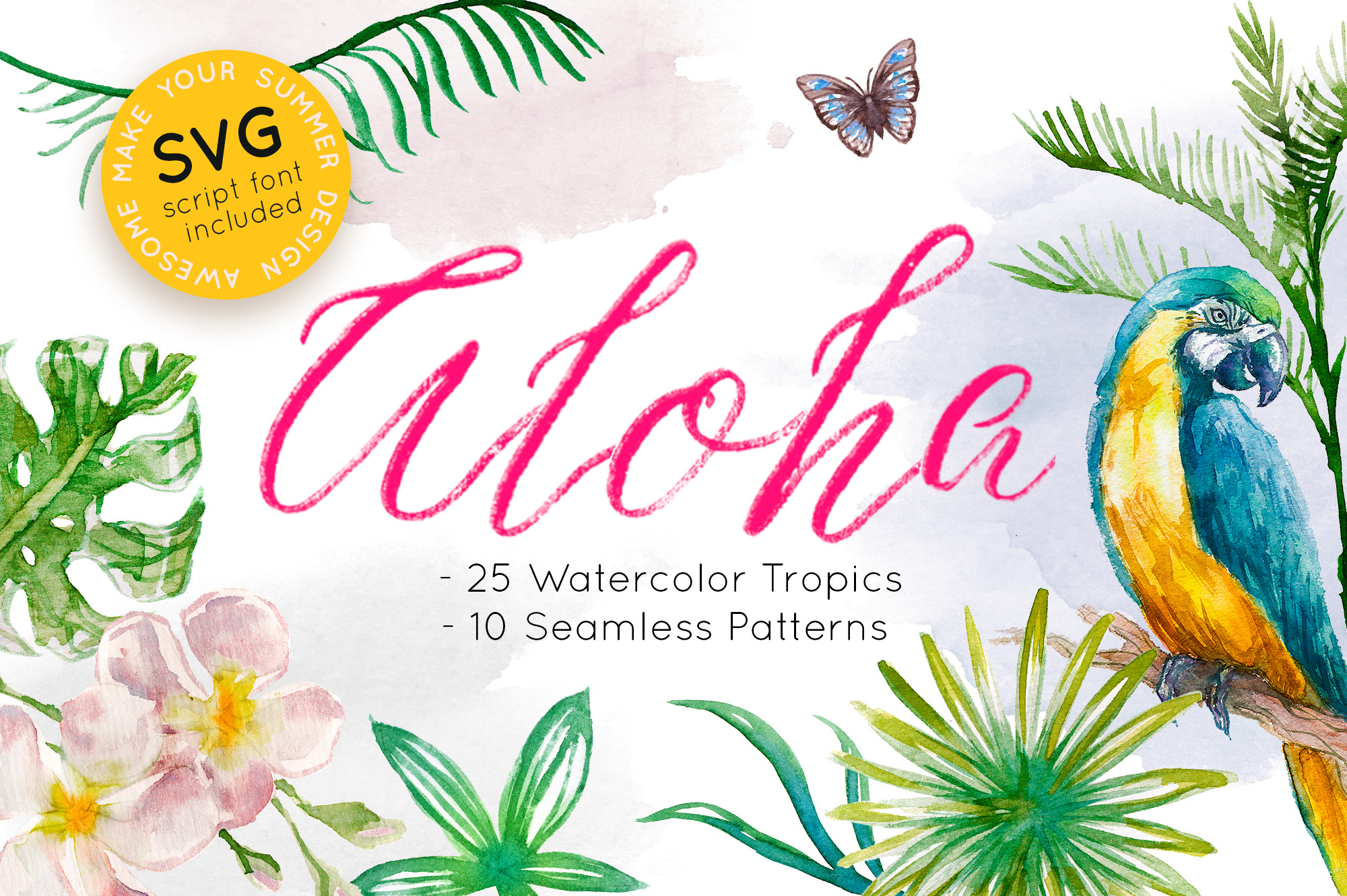
Watercolor Tropics | Script Font
Welcome to my new hand painted WATERCOLOR TROPICAL PARADISE! This fresh and warm summer bundle includes 25 watercolor tropics, 10 seamless patterns and SVG script font paired with solid vector version.
Aloha watercolor collection is really new and trendy, universal and modern! The owner of endless possibilities thanks to SVG script font addition! What you get, darling:
Aloha SVG font has a real hand-painted wet brush look, ultra-textured and transparent letters with high-definition brush textures built in to the font as a transparency. This font will help you to make your summer projects trully hand-painted realistic and natural.It is perfect for multiple contexts. Works great in mood boards, posters, logos, headlines, packaging, advertising, branding and so much more.
Both Aloha SVG font an solid vector versions have uppercase and lowercase letters, numbers & basic punctuation, multiligual support (French, German, Italian, Norwegian, Portuguese, Spanish, Swedish, Swiss German).